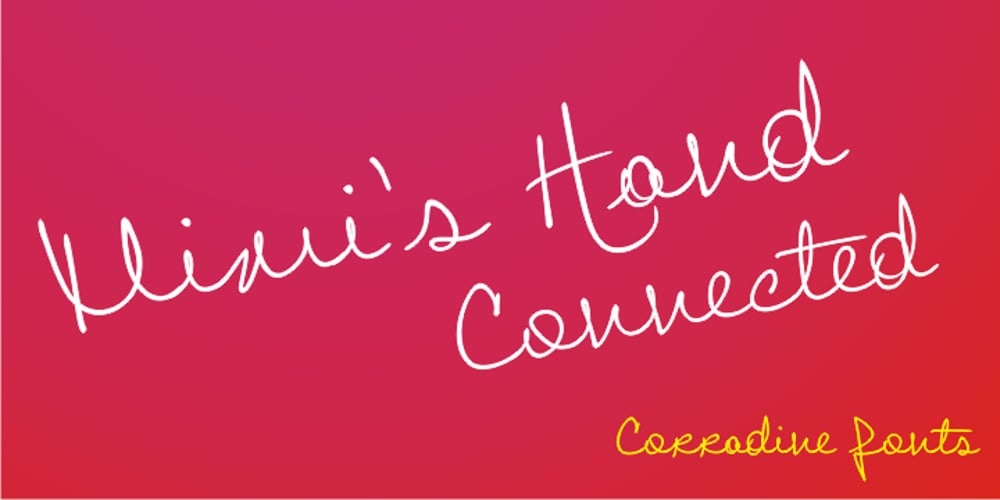
Mimi’s Hand Connected Font Family was designed by Manuel Eduardo Corradine and published by Corradine Fonts. Mimi’s Hand Connected contains 1 styles and family package options. Based in Maria Consuelo Roman’s handwriting, Mimi’s Hand Connected is a very spontaneous font. It could be used in any informal project.